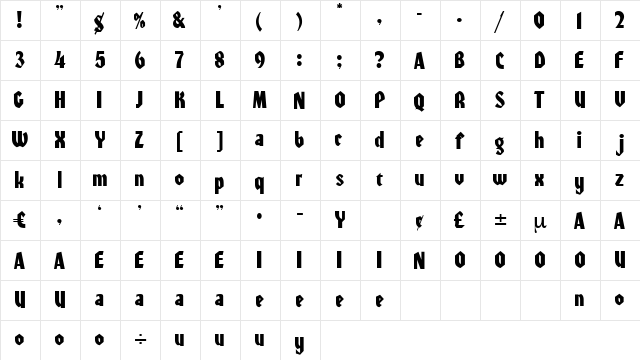
Warszawa Regular
Design Context for Warszawa Typeface
Warszawa is a composed and adaptable typeface that performs quietly and consistently across a wide range of design contexts.